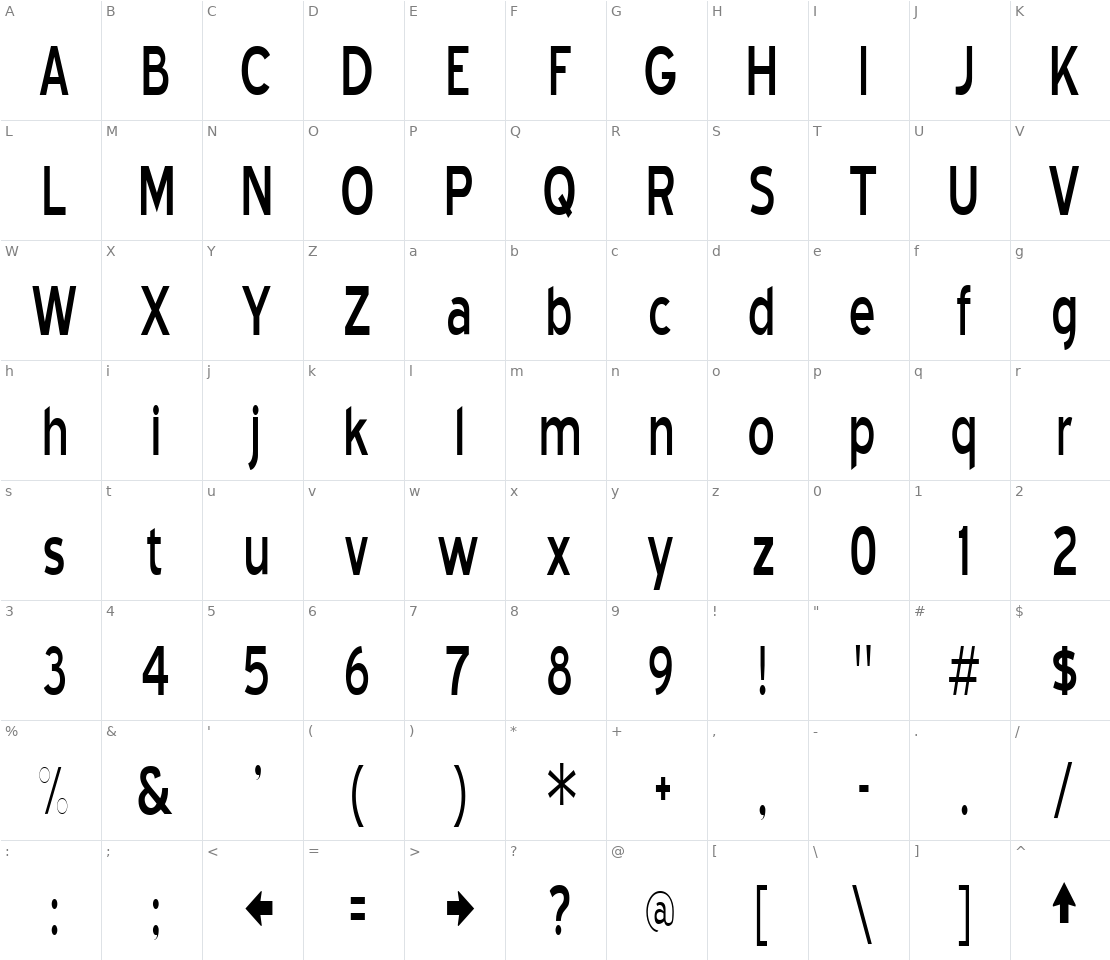
Blue Highway
Blue Highway is a condensed sans-serif from Ray Larabie, one of the most prolific designers in the free font space. Its compact, clean letterforms have a modern sensibility that reads well in headlines, navigation, and tight layouts where you need clarity without bulk. Bold enough to carry weight at display sizes but restrained enough to hold up in smaller applications too.